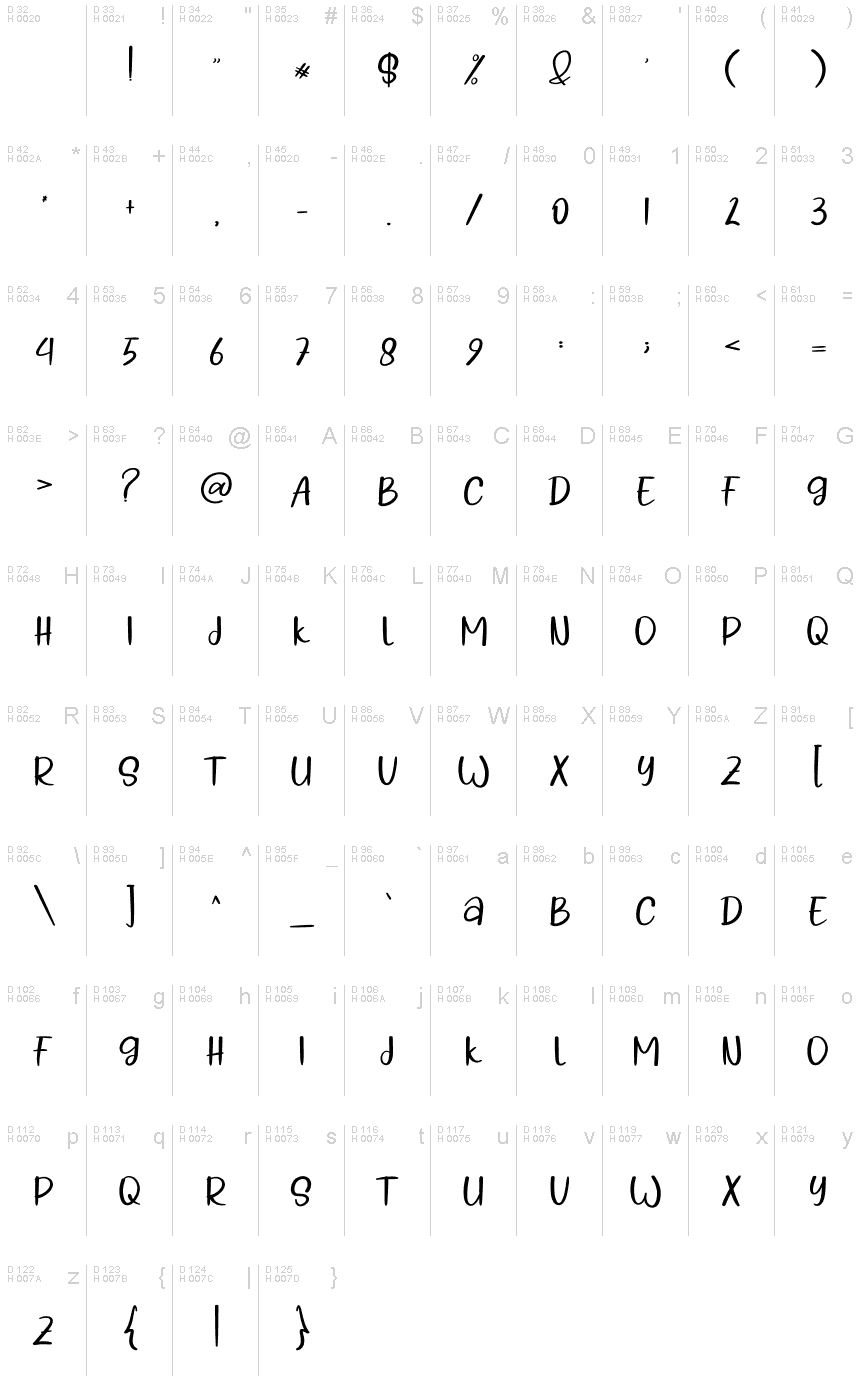
Desember
Desember, crafted by the talented Etik Fatimah, is a handwritten font that exudes charm and personality. Its flowing strokes and playful character shapes capture the essence of spontaneous penmanship, making it a go-to choice for projects that require a personal touch. The aesthetic appeal of Desember lies in its balance between legibility and artistic flair, allowing it to stand out without overpowering the design.
With its distinctive style, Desember lends itself beautifully to invitations, greeting cards, branding materials, and any creative work where a hint of human warmth is desired. Its versatility is evident in how it complements both casual and more sophisticated contexts. Embrace the unique allure of Desember for your next project and let its authentic vibe resonate with your audience.